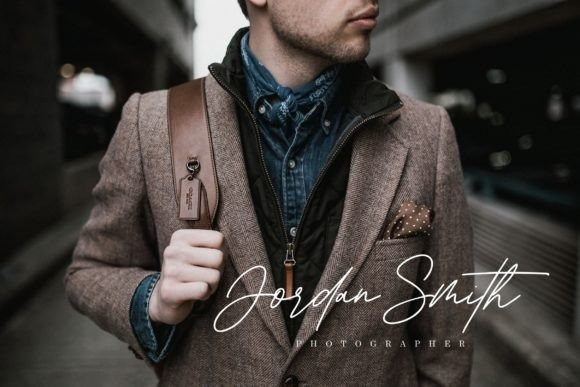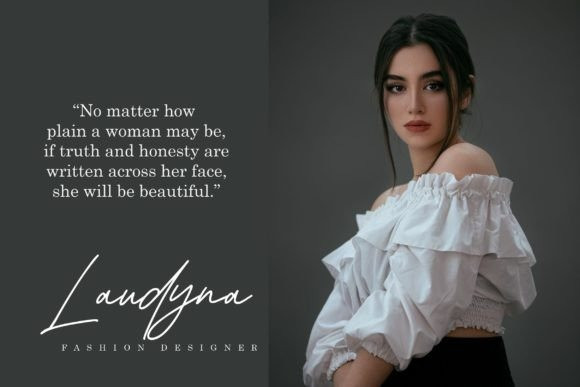
Dellinia Font
Dellinia would be perfect for photography, watermarks, social media posts, advertisements, logos & branding, invitations, product design, labels, stationery, wedding designs, product packaging, special events, and other projects.